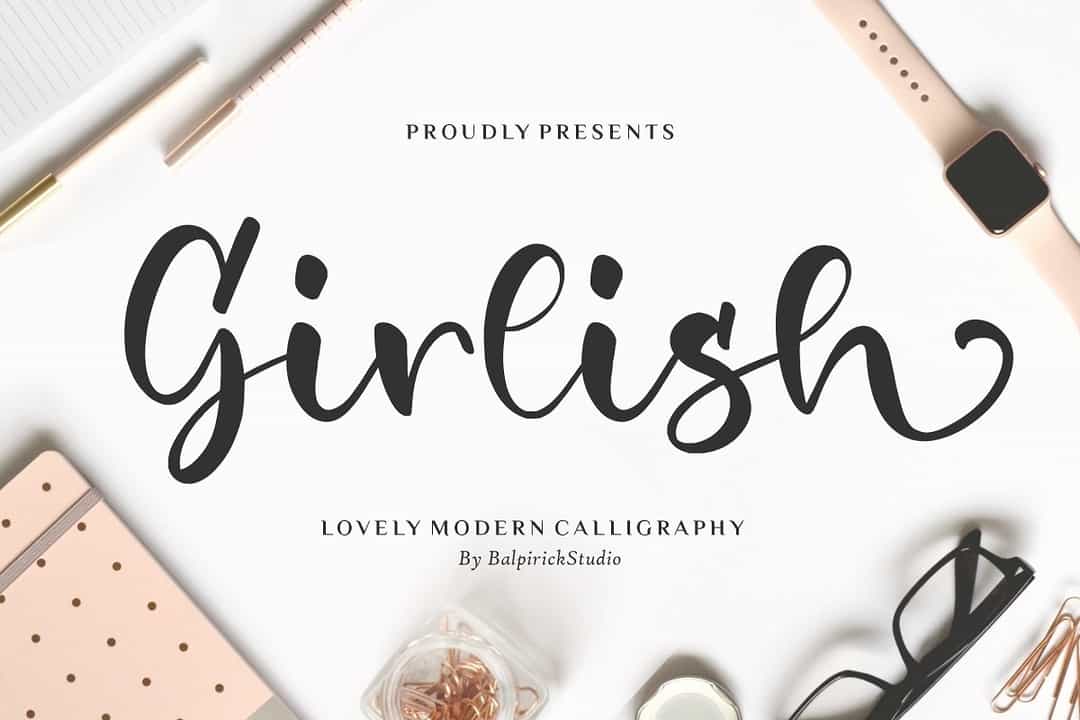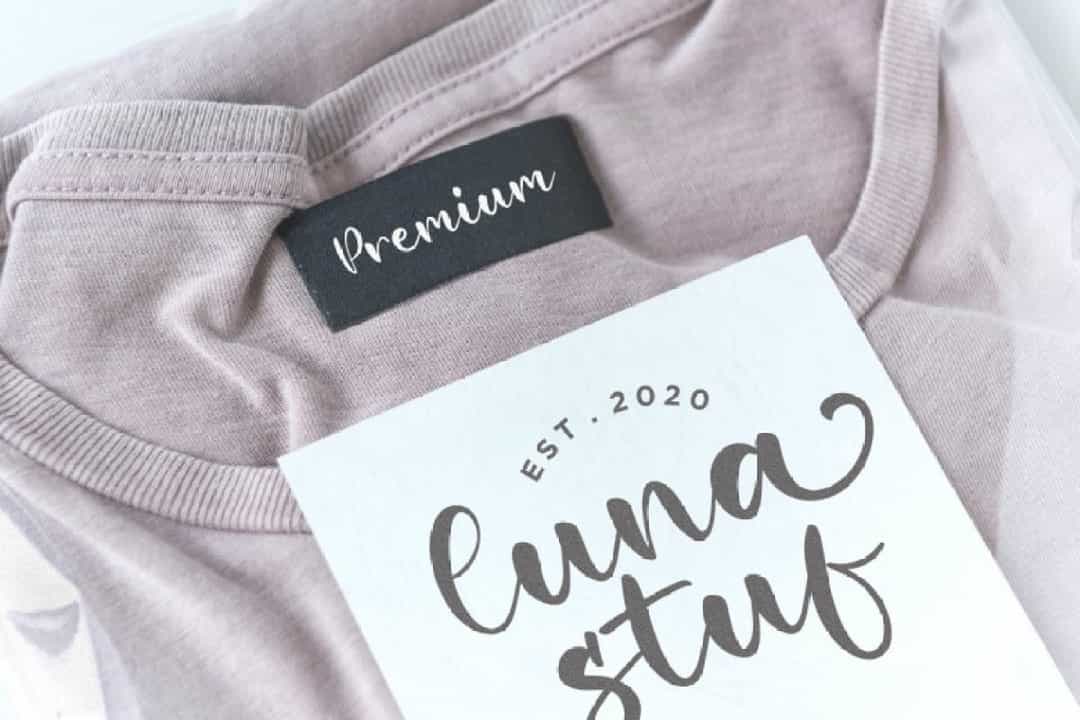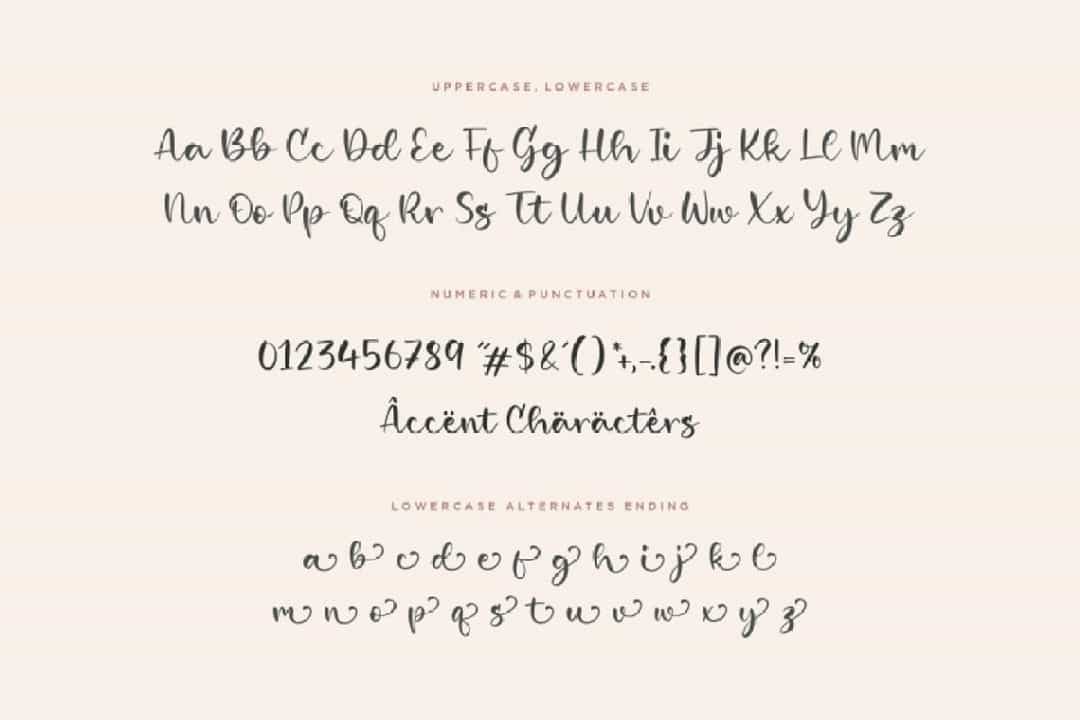
Girlish Calligraphy Font by Balpirick is an exquisite script type. Designed with great detail and beauty in mind, this font will enrich any work it is used in. A must-have font addition for any library!